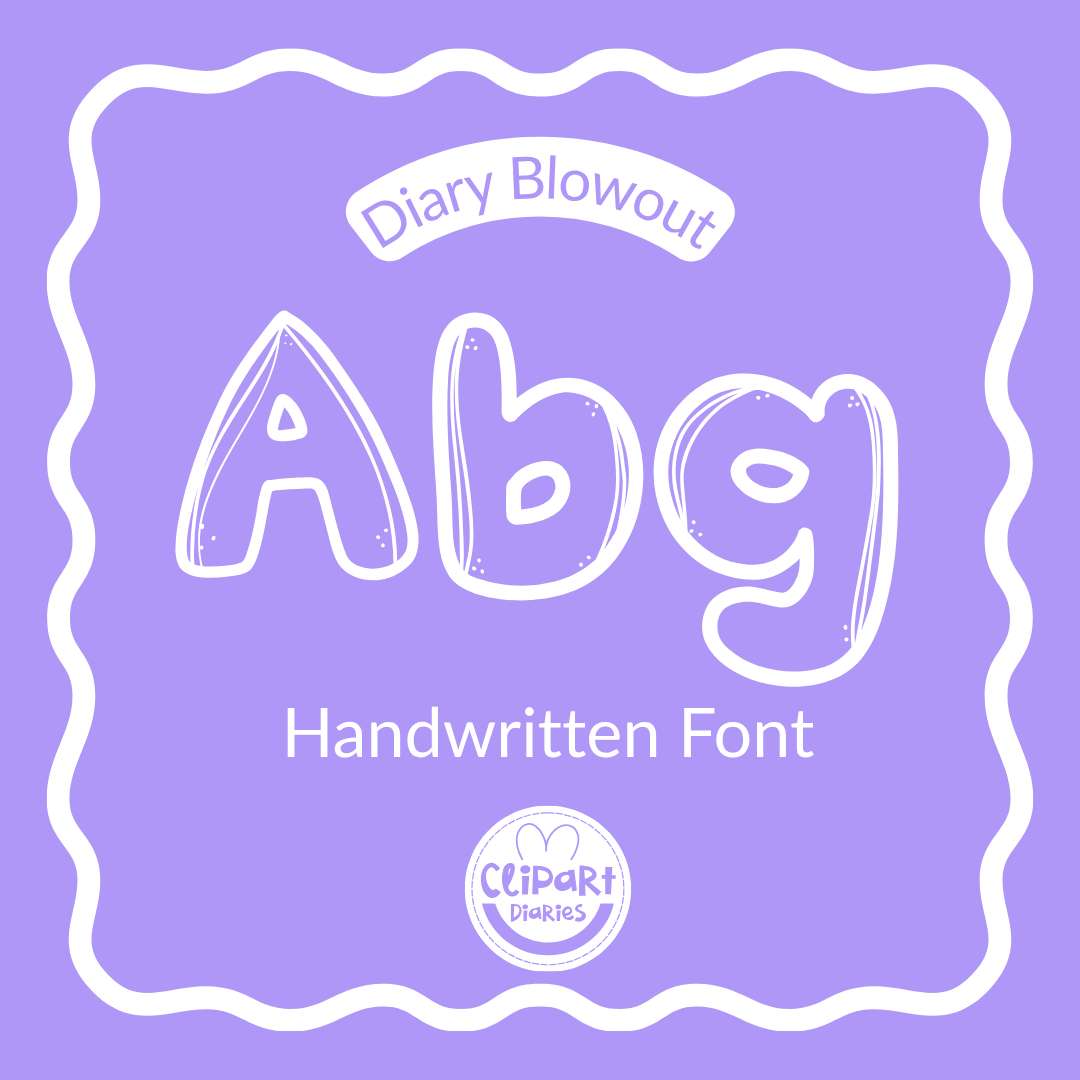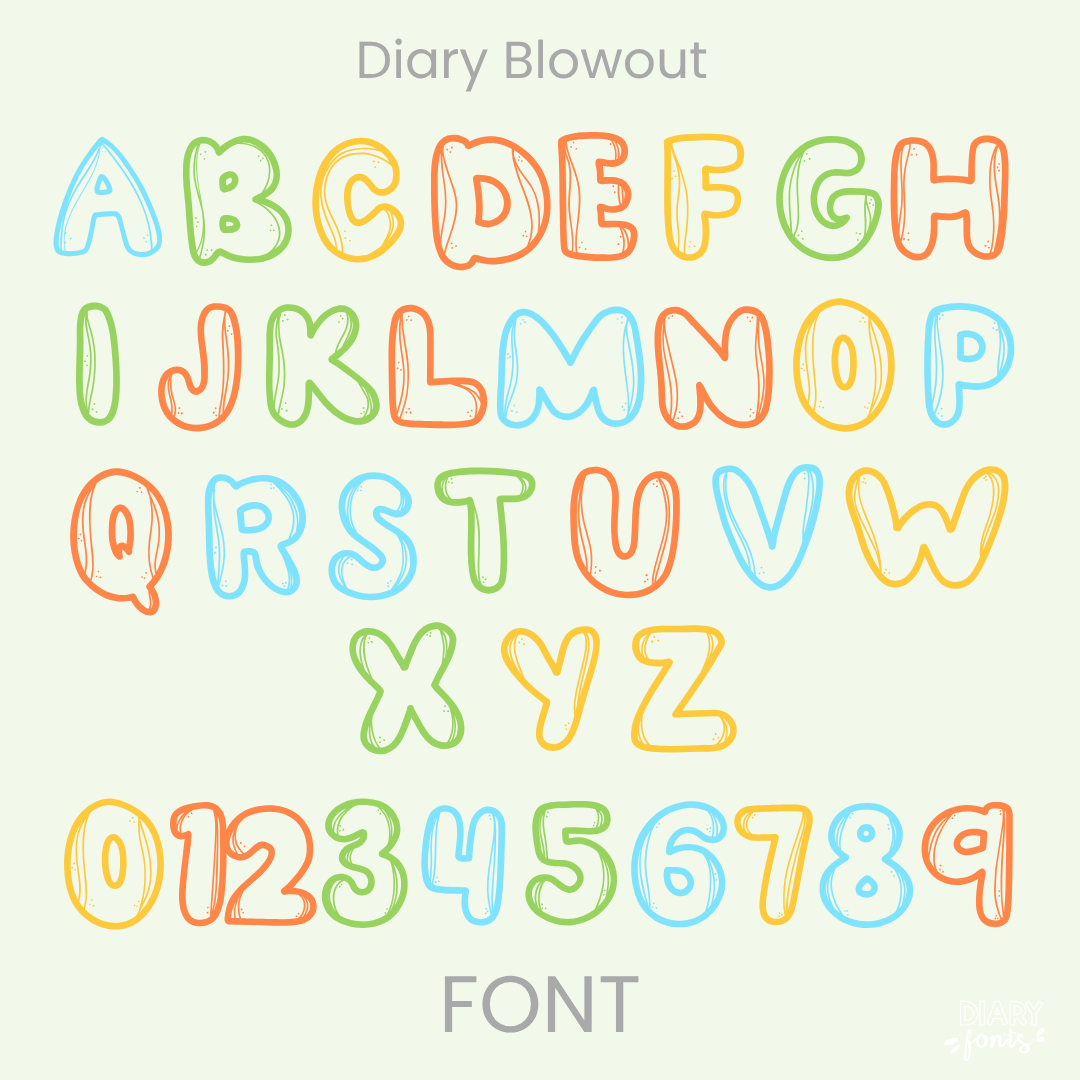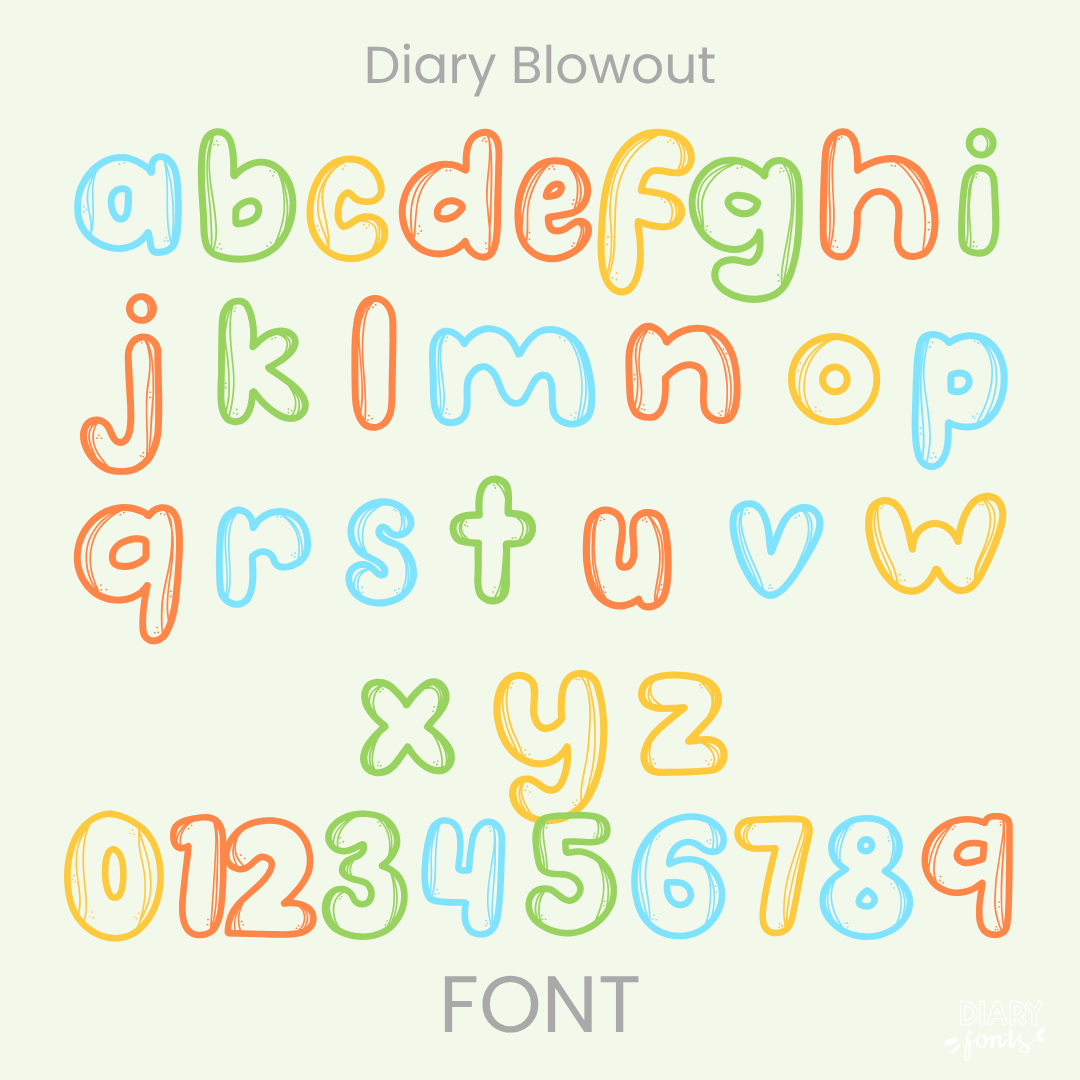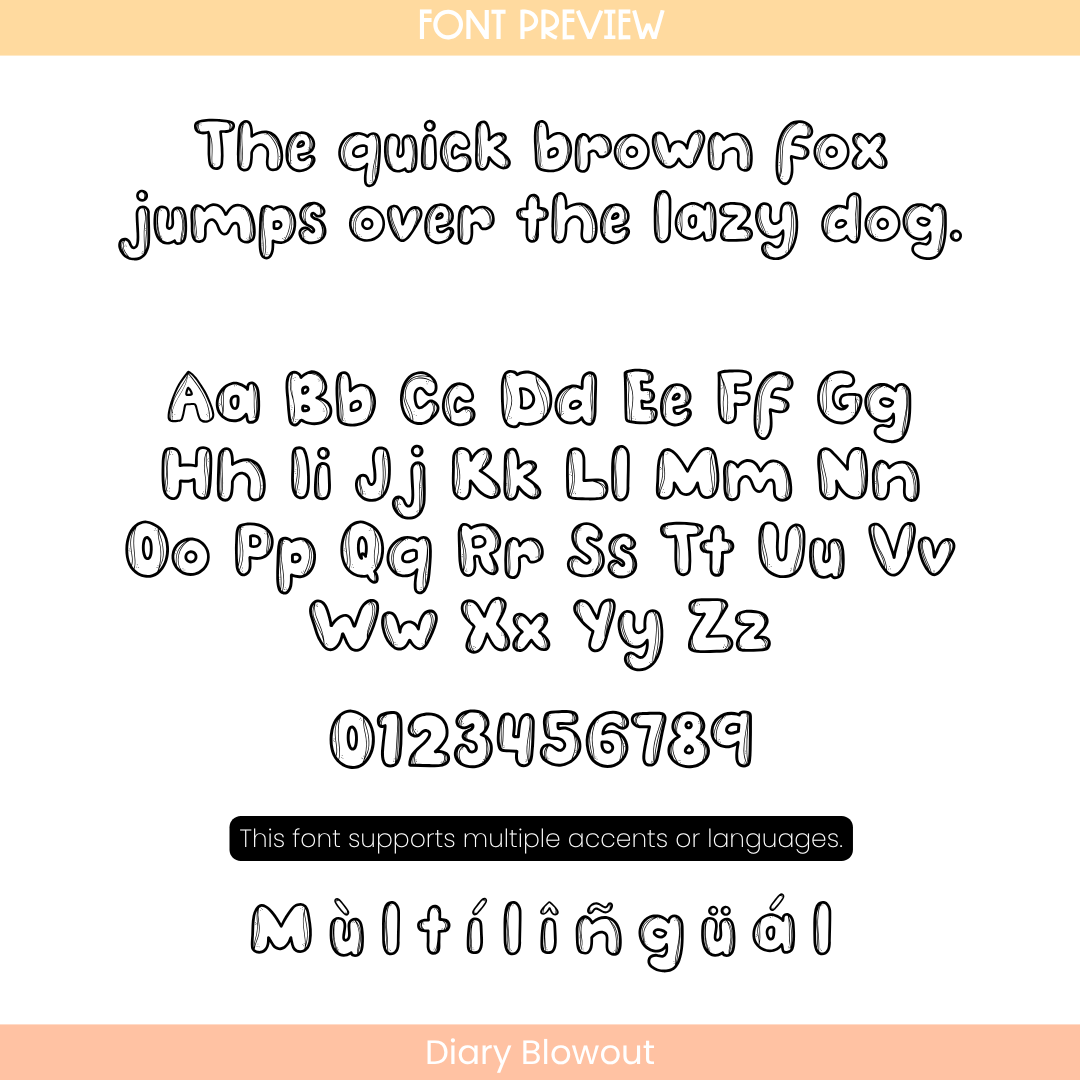
Make your designs pop with Diary Blowout, a spirited handwritten font that balances a lively, high-energy aesthetic with professional legibility. This typeface features a full set of uppercase and lowercase letters, numbers 0–9, and multi-language support for various accents, making it a versatile tool for educational projects. It works with Canva, MS Office, and Adobe Apps, as well as popular iPad tools like GoodNotes and Procreate. Whether you are a teacher creating eye-catching classroom posters, dynamic worksheets, or personalized digital planners, Diary Blowout offers a polished, hand-drawn look that is perfect for both personal and commercial use.